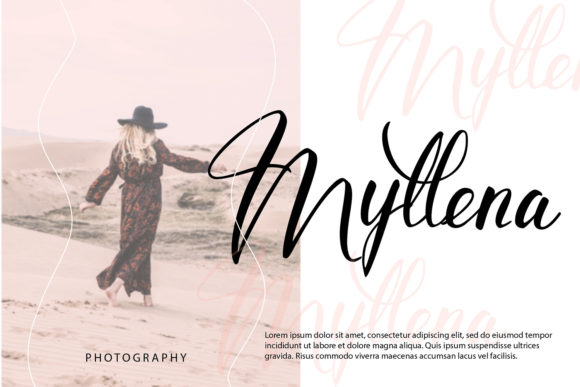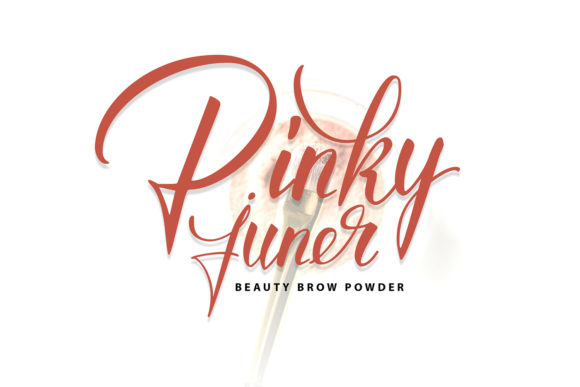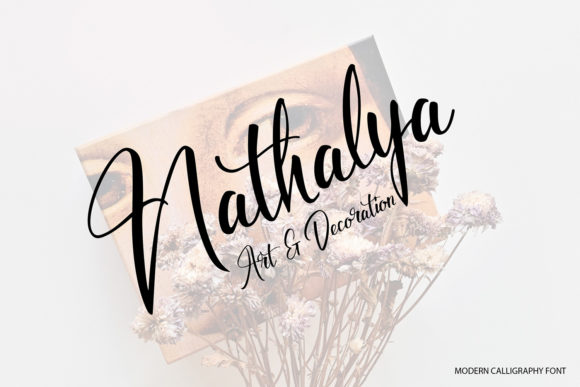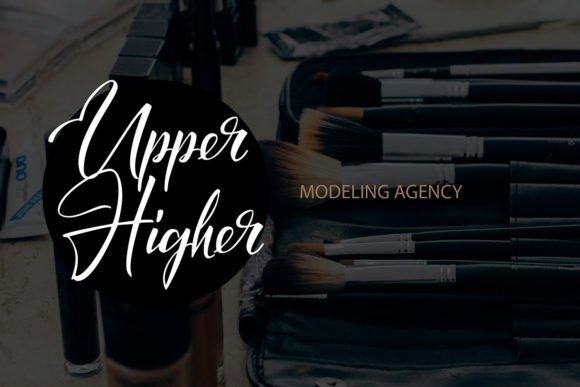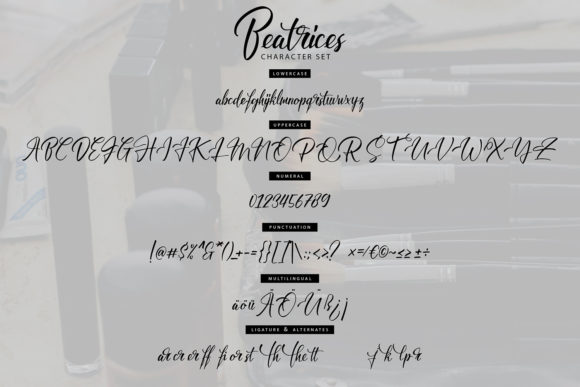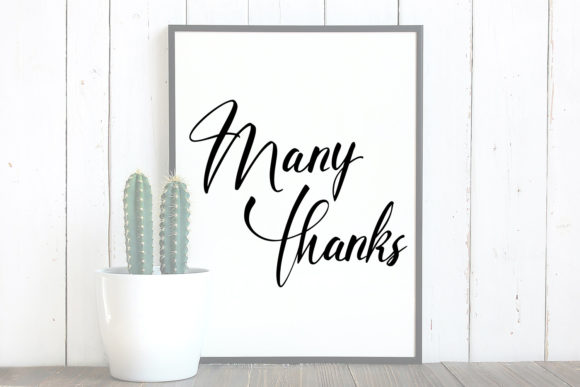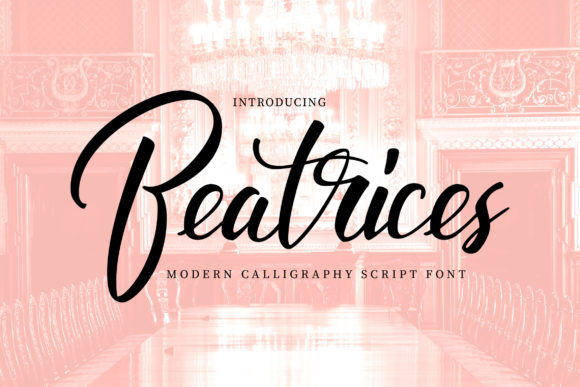
Introducing Beatrix’s Font: The Ultimate Calligraphy Typeface for Luxurious Designs
Are you a designer or crafter looking for a typeface that exudes romance, sweetness, and luxury? Look no further than Beatrix’s Font! This stunning calligraphy typeface is designed to add a touch of elegance and sophistication to any design project. With its unique, dancing characters that flow along the baseline, Beatrix’s Font is sure to make your designs stand out from the crowd.
What Makes Beatrix’s Font So Special?
Beatrix’s Font is a beautifully crafted calligraphy typeface that boasts a range of characteristics that set it apart from other fonts. Here are just a few of the features that make Beatrix’s Font so special:
• Romantic and Sweet: Beatrix’s Font has a distinctly romantic and sweet feel to it, making it perfect for designs that require a touch of whimsy and charm.
• Dancing Characters: The characters in Beatrix’s Font are designed to dance along the baseline, creating a sense of movement and fluidity that adds to the font’s overall elegance.
• Luxury Appeal: With its sophisticated, high-end feel, Beatrix’s Font is perfect for designs that require a touch of luxury and sophistication.
• Versatile: Beatrix’s Font is incredibly versatile, making it suitable for a wide range of design projects, from wedding invitations and stationery to branding and packaging.
How to Use Beatrix’s Font in Your Designs
Beatrix’s Font is incredibly easy to use and can be incorporated into a wide range of design projects. Here are a few ideas to get you started:
• Wedding Invitations: Add a touch of romance and elegance to your wedding invitations with Beatrix’s Font.
• Branding and Packaging: Use Beatrix’s Font to add a touch of luxury and sophistication to your branding and packaging.
• Stationery: Create beautiful, high-end stationery with Beatrix’s Font, perfect for business or personal use.
• Signage: Use Beatrix’s Font to create stunning signage for events, businesses, or personal projects.
Tips and Tricks for Getting the Most Out of Beatrix’s Font
Here are a few tips and tricks to help you get the most out of Beatrix’s Font:
• Pair with Other Fonts: Experiment with pairing Beatrix’s Font with other fonts to create a unique and eye-catching design.
• Use in Combination with Images: Use Beatrix’s Font in combination with images to create a stunning visual effect.
• Experiment with Colors: Don’t be afraid to experiment with different colors and textures to add depth and interest to your design.